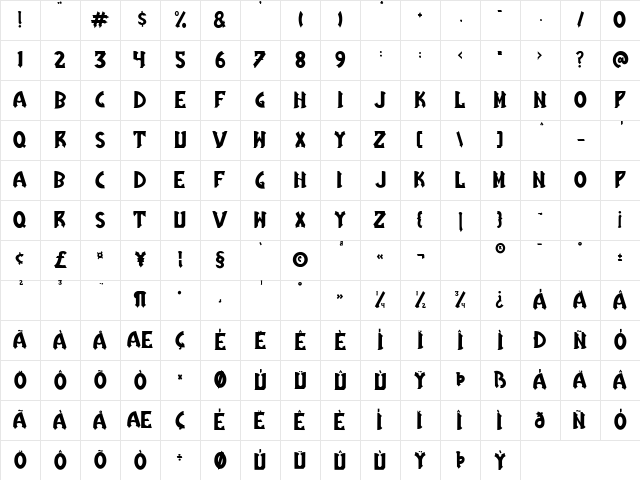
Astral Night Regular
Foundry: Arendxstudio
Designer: Arendxstudio
Design Context for Astral Night
Astral Night is a composed and adaptable typeface that performs quietly and consistently across a wide range of design contexts.